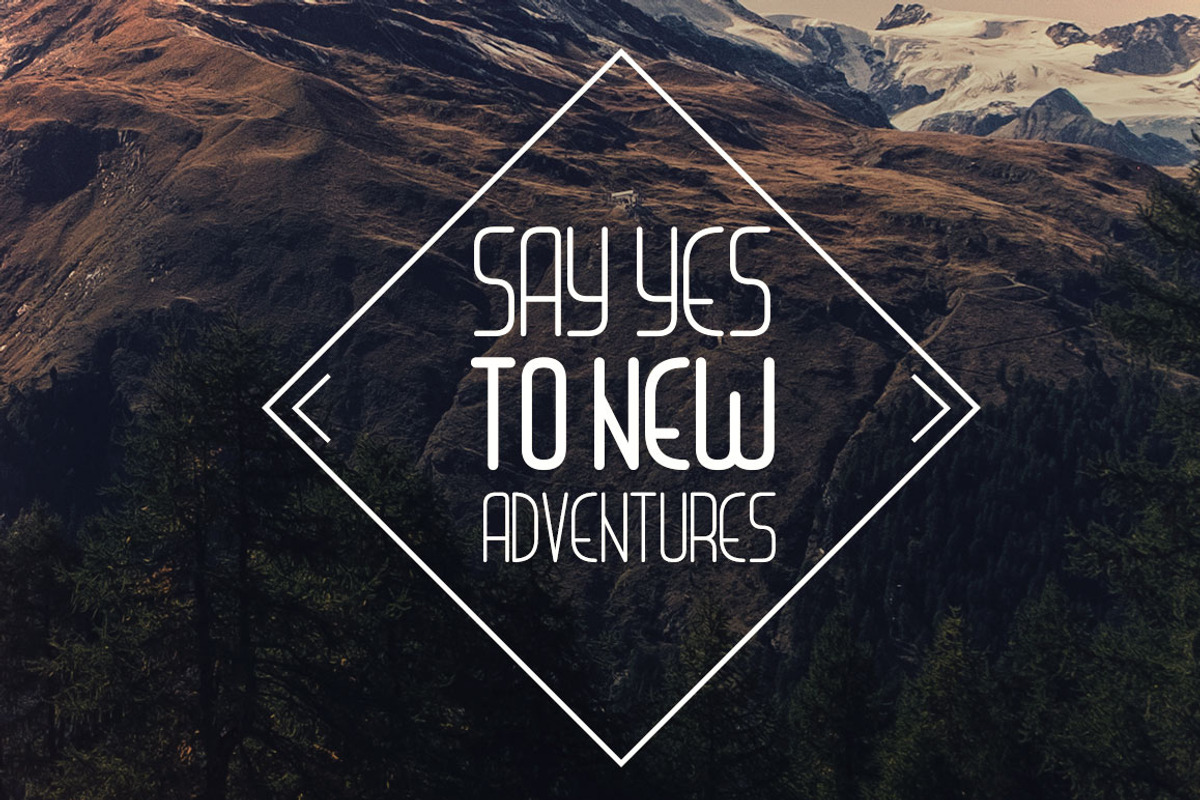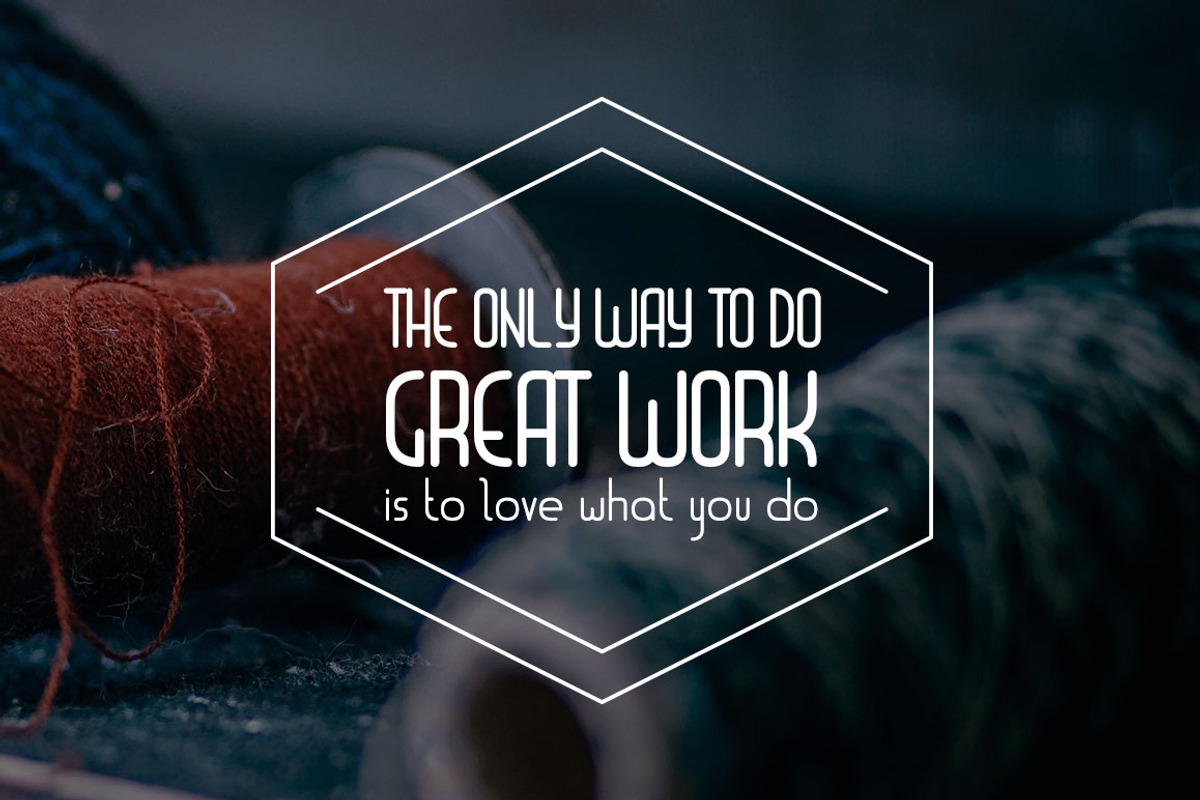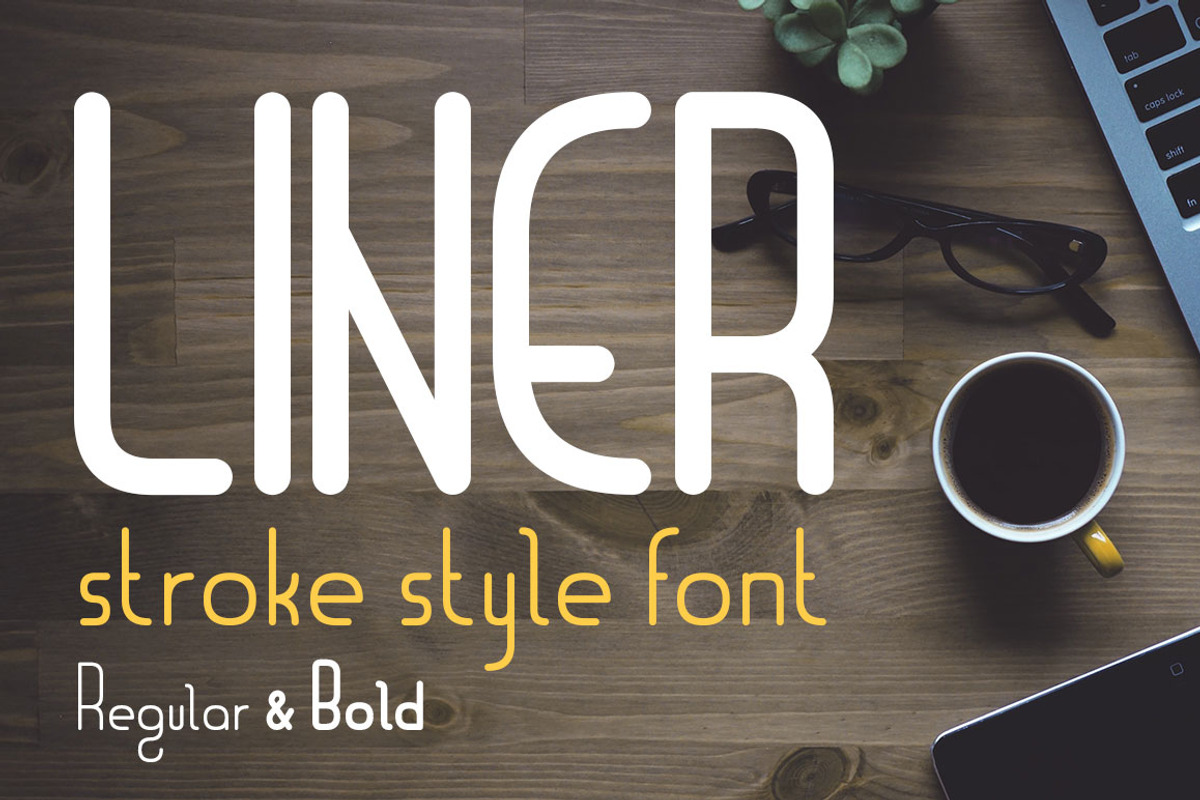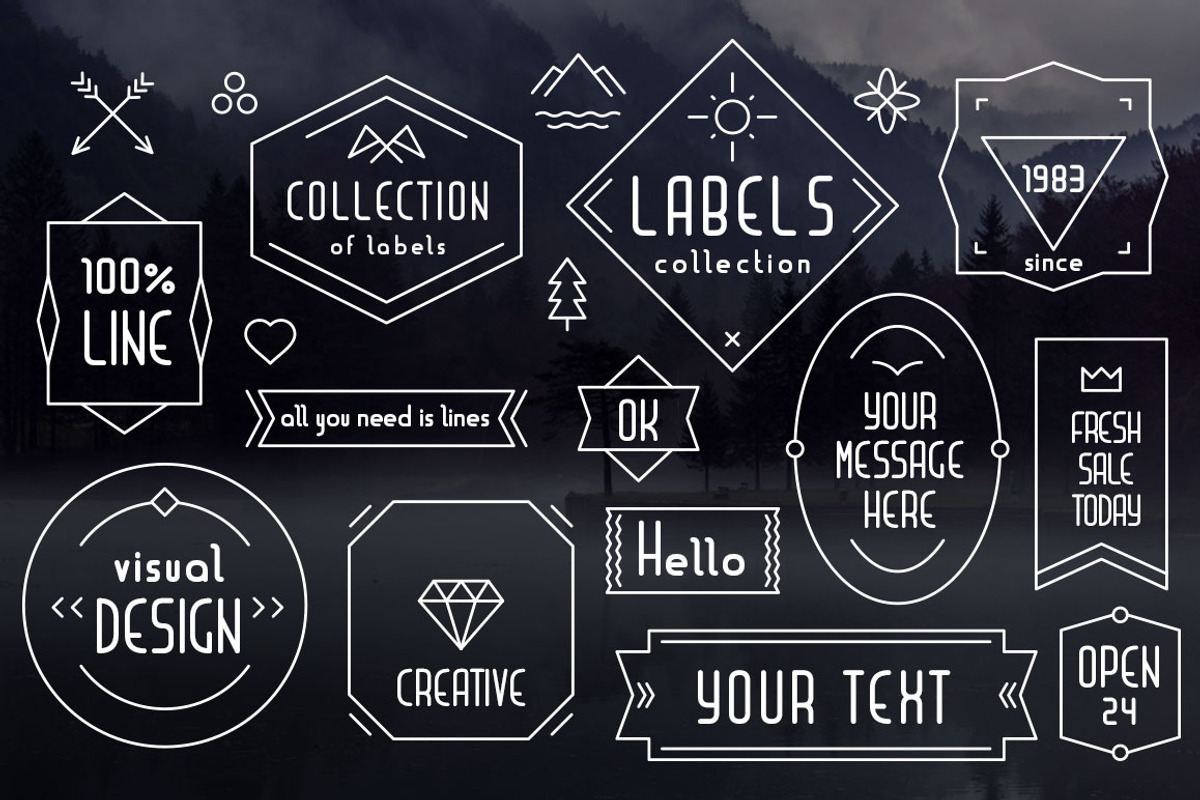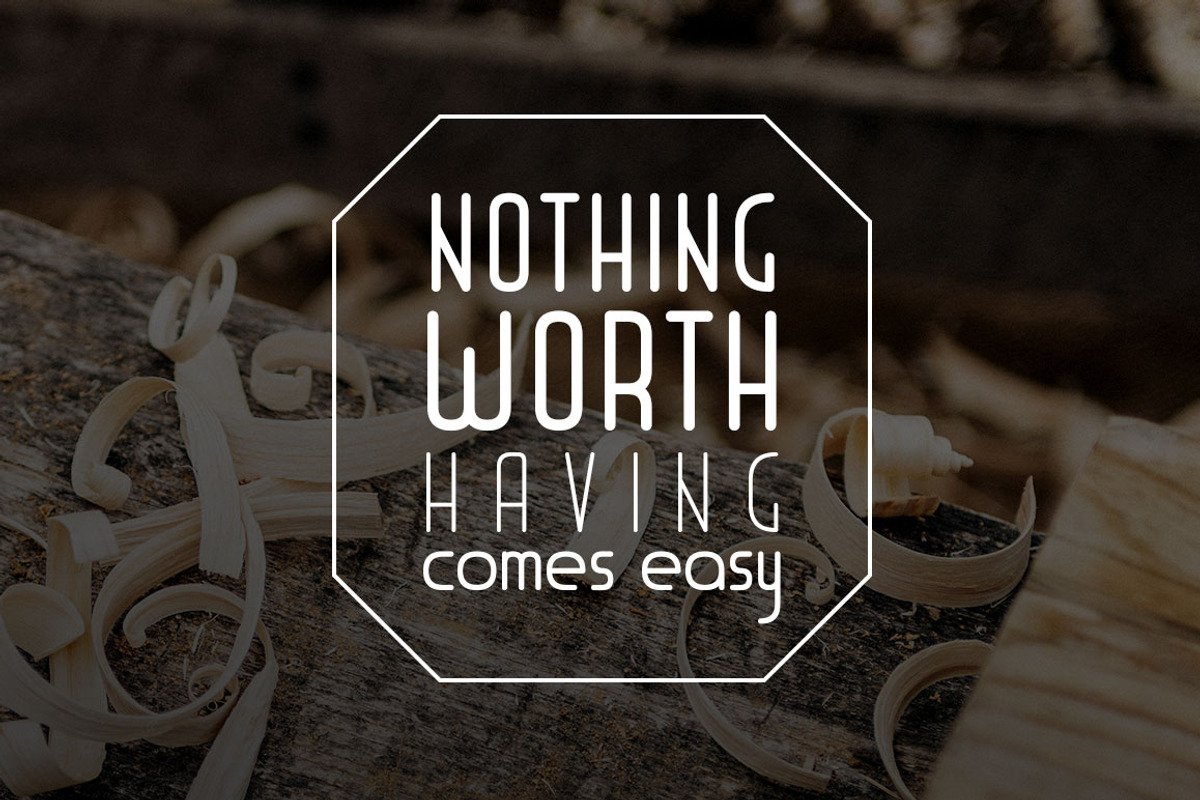
Liner| font for logos with frames
Liner| font for logos with frames by wowomnom is a font selected for branding, posters, packaging, typography.
Why Liner| font for logos with frames is worth a look
Liner| font for logos with frames by wowomnom fits naturally into Branding, posters, packaging, typography.